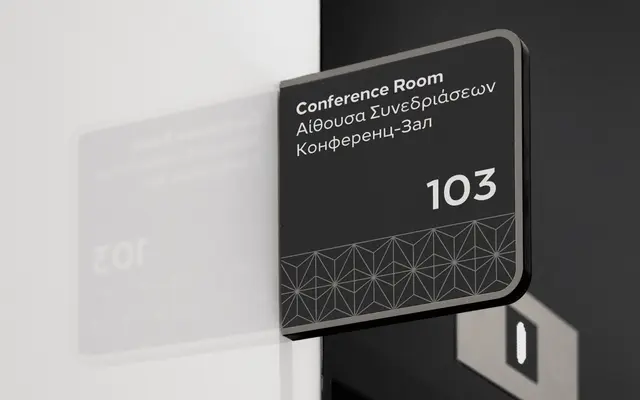
Loew Next
The Northern Block · 2014
A reworked geometric sans with eight weights and broad script coverage across Latin, Cyrillic and Greek for international use.
An update to the original Loew (2014), refined for greater consistency across weights and expanded to cover Cyrillic, Greek and Extended Latin. Eight weights run from Thin to Ultra, each with a matching italic, and OpenType features include alternate lowercase forms for a, e, g and l, seven numeral variations and small caps with accents. Suited to pan-European branding and corporate communication where a clean, upright geometric is needed at scale.
Loew Next is a clean, upright geometric sans-serif with alternate single-storey letterforms and a neutral, functional character consistent with the geometric tradition.